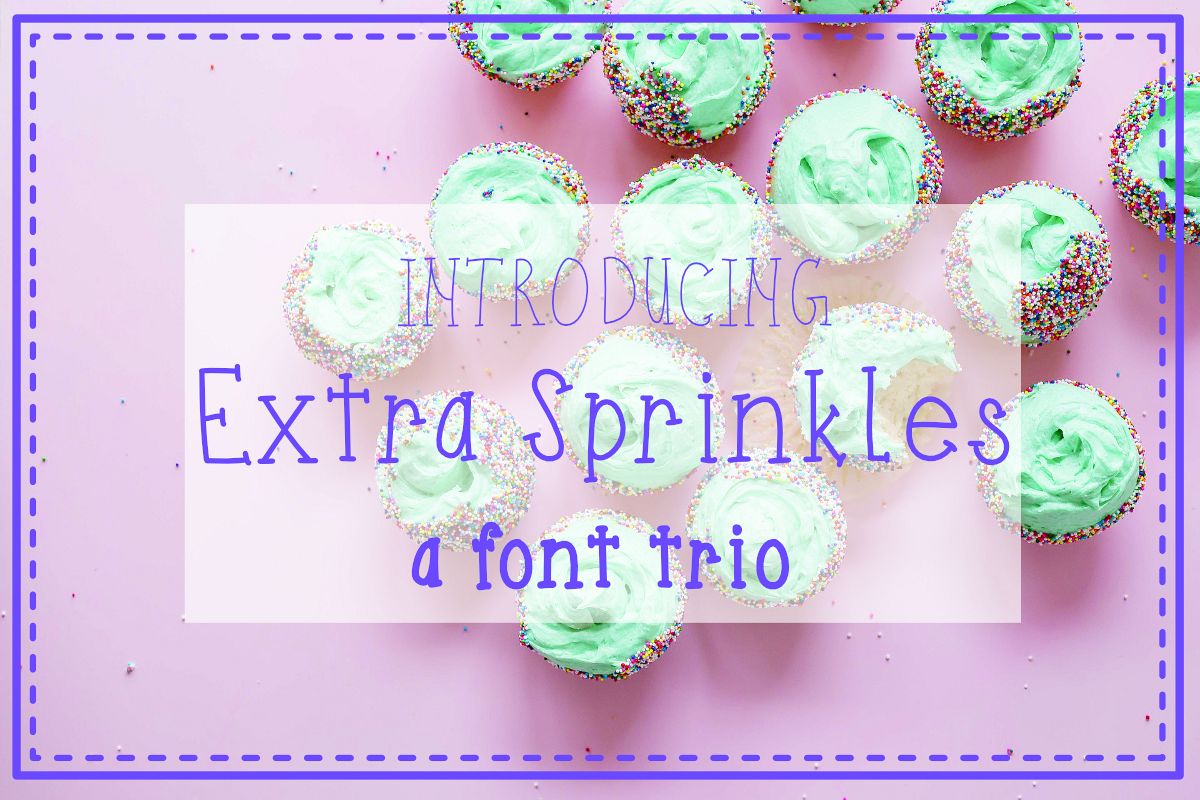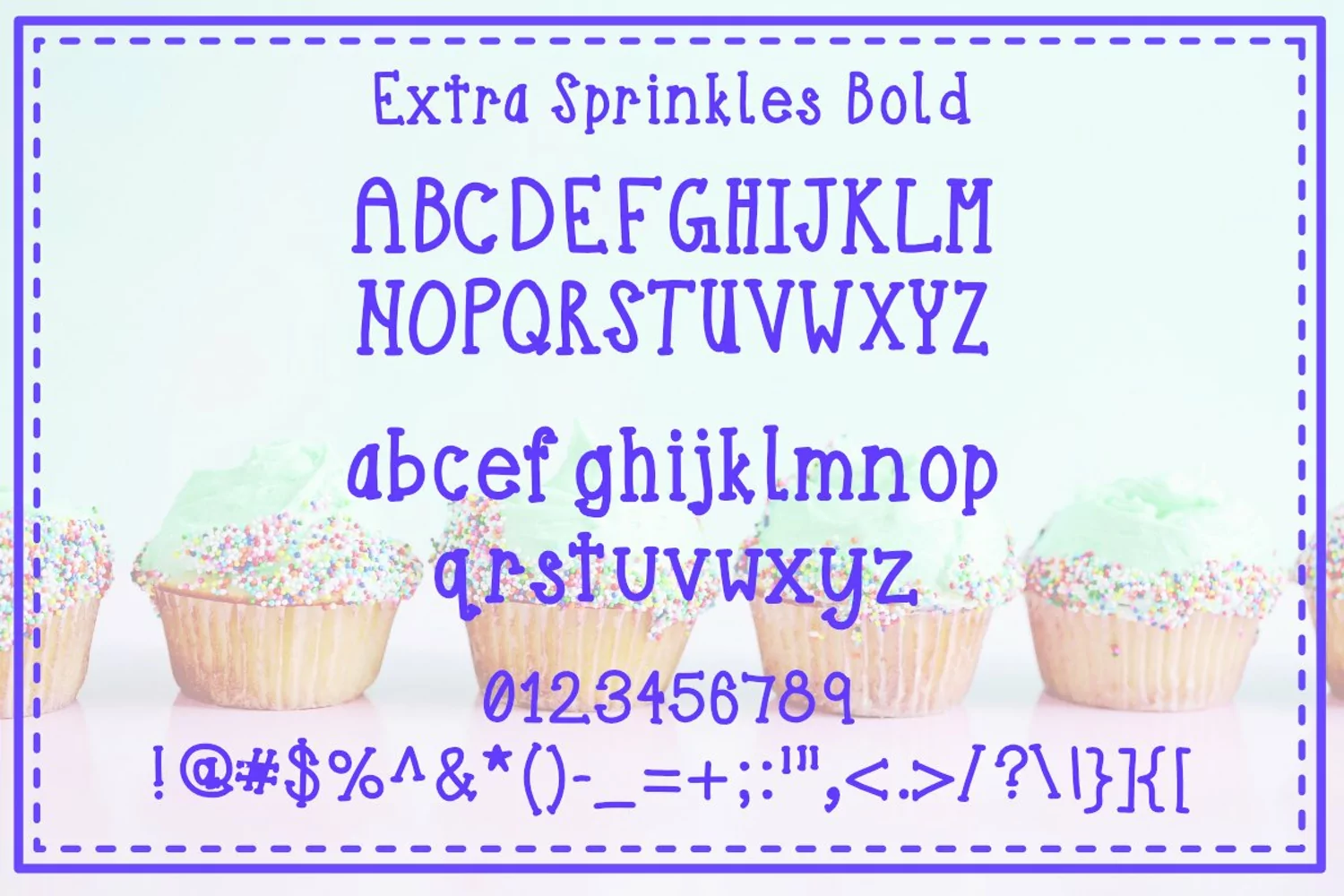
Extra Sprinkles Font Trio
by Nicole Forbes Designs
A cute handwritten font for branding, invitations, & social media post.
Comes with 3 styles:
Reg.
Bold
Thin